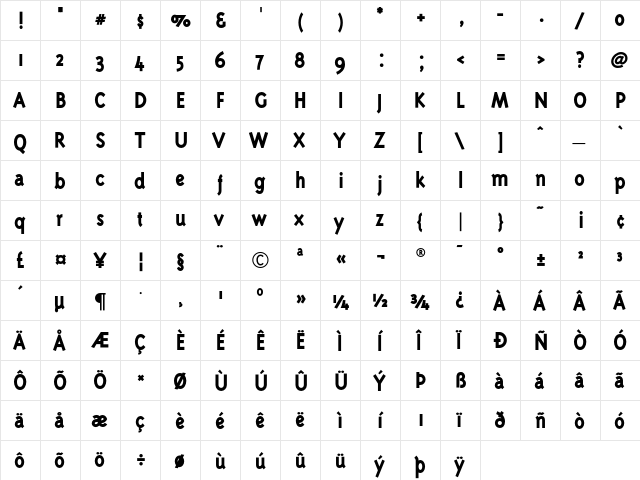
Karmen Bold
Design Context for Karmen Typeface
Karmen is a composed and adaptable typeface that performs quietly and consistently across a wide range of design contexts. Its bold stroke weight gives it real presence on the page.